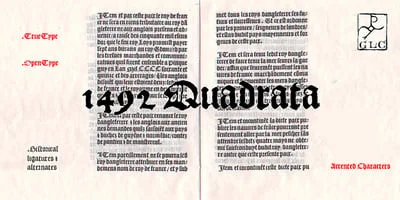
1492 Quadrata Font
This font is exciting because it embodies the monumental significance of 1492, the year that forever changed world history through Columbus's voyage to the Americas, featuring bold quadrata letterforms that capture the same architectural grandeur and historical weight found in the stone inscriptions and manuscript illuminations that documented humanity's greatest age of exploration and discovery. The powerfully geometric character design reflects both the mathematical precision of Renaissance navigation and the enduring strength of carved stone monuments that have preserved historical records for centuries. Each letter stands with the same monumental presence and historical authority that transforms ordinary text into declarations worthy of the most significant moments in human civilization.
The 1492 Quadrata Font family includes regular and bold weights with complete character sets featuring Renaissance-era numerals, period-appropriate punctuation marks, and decorative elements inspired by medieval stone carving, monastery manuscripts, and Age of Discovery cartography. Advanced versions may offer additional stylistic variants with enhanced stone-carved effects, alternate characters that reflect authentic medieval lettering practices, and ornamental elements that celebrate the rich heritage of Renaissance exploration and medieval scholarship.
Whether you're developing historical education materials, creating exploration-themed exhibitions, or designing authentic medieval reproductions, 1492 Quadrata Font provides the monumental authority and historical significance your project needs to honor the greatest age of human discovery and the brave explorers who changed the world forever. This typeface transforms ordinary text into historical monuments that carry the weight of world-changing events and the courage of Renaissance exploration. The font's monumental character makes it essential for projects celebrating exploration history and medieval heritage. Historical scholars and exploration enthusiasts will appreciate how this font brings authentic Renaissance monumentality to their work with its genuinely historical and world-changing character that honors the spirit of 1492.